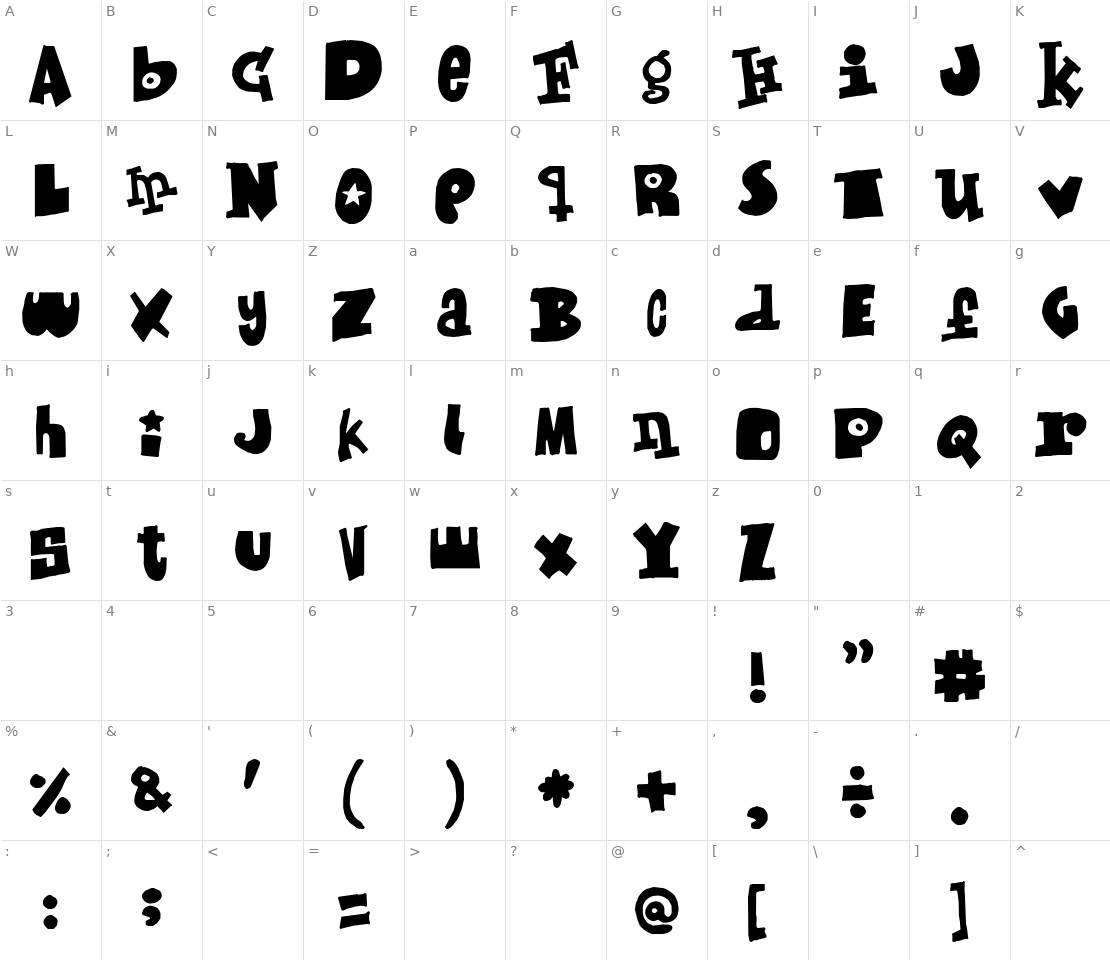
Mixed Up
Mixed Up is a playful novelty face from Pizza Dude where each letter seems to come from a different typographic universe, mixing weights, styles, and proportions into something deliberately chaotic. The irregular, ransom-note energy keeps things fun and lighthearted rather than menacing, making it a solid pick for headlines, posters, and children's projects where you want every word to feel a little unpredictable.